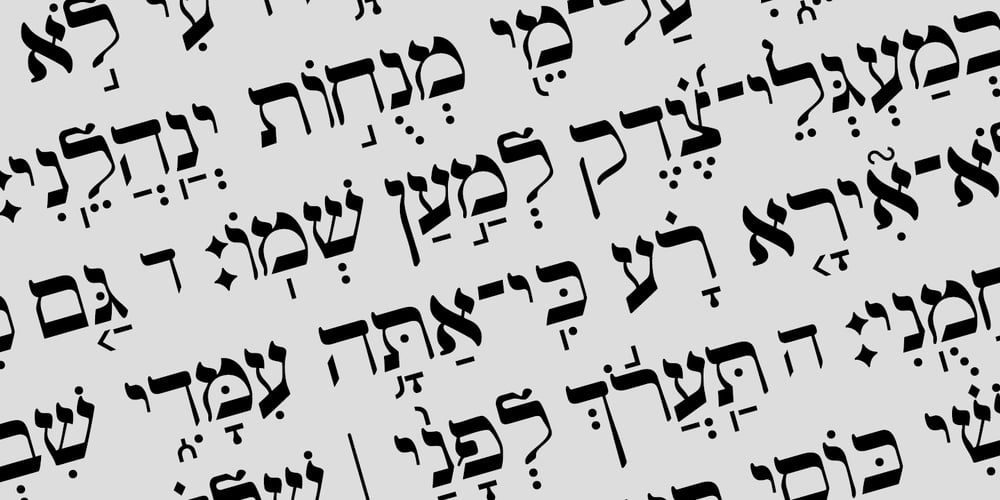
Hebrew Text Tanach Font Family was designed by Sami Artur Mandelbaum and published by Samtype. Hebrew Text Tanach contains 1 styles and family package options. This is a font to build a Hebrew Bible (Tanach) or any Hebrew prayer book.Magalith Tanach Pro has all Unicode Hebrew marks and others like ShevaNa, Dagesh Chazak, Qamats Katan, and Cholam Chaser.You can even hide marks You don’t want to use.This font has a complex and exclusive Programmation of Opentype features.Adobe InDesign is the best program to use.